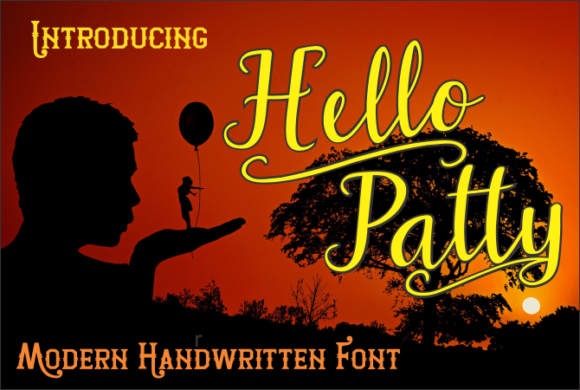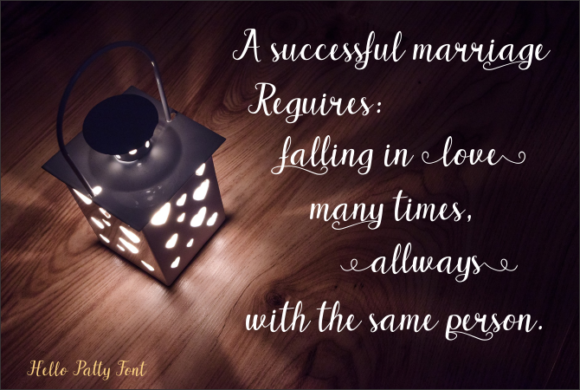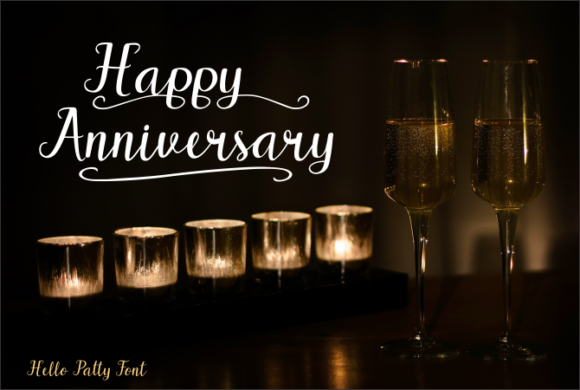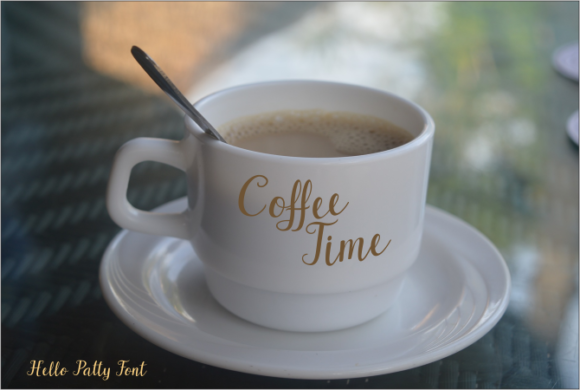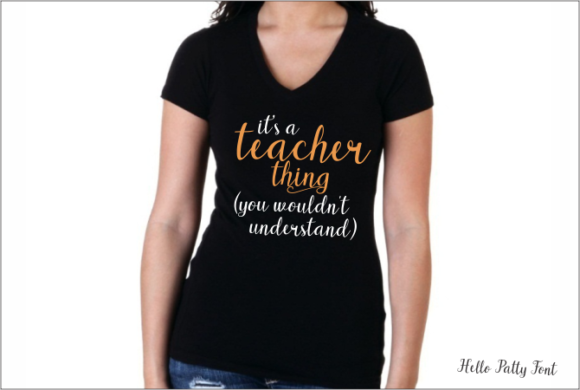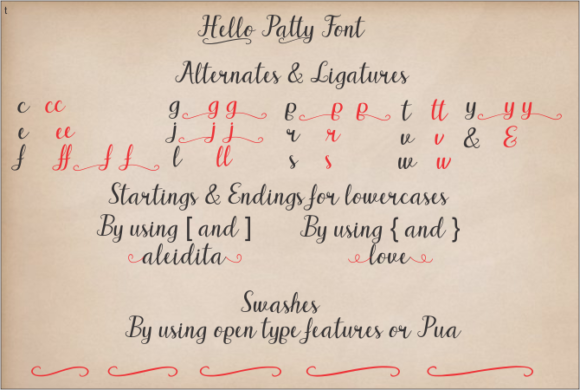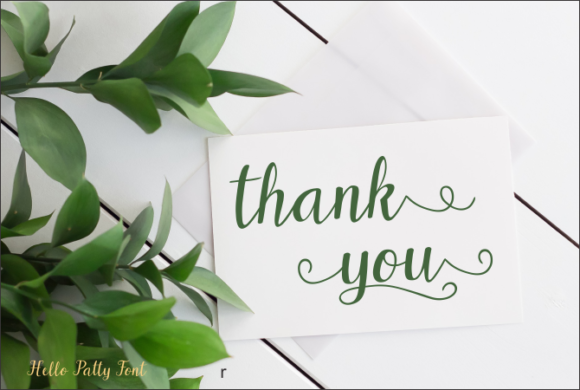
Hello Patty Font
About Hello Patty Font
The Hello Patty is a modern handwritten typeface with elegant swirls. It can be used for every design that needs a elegant typeface.